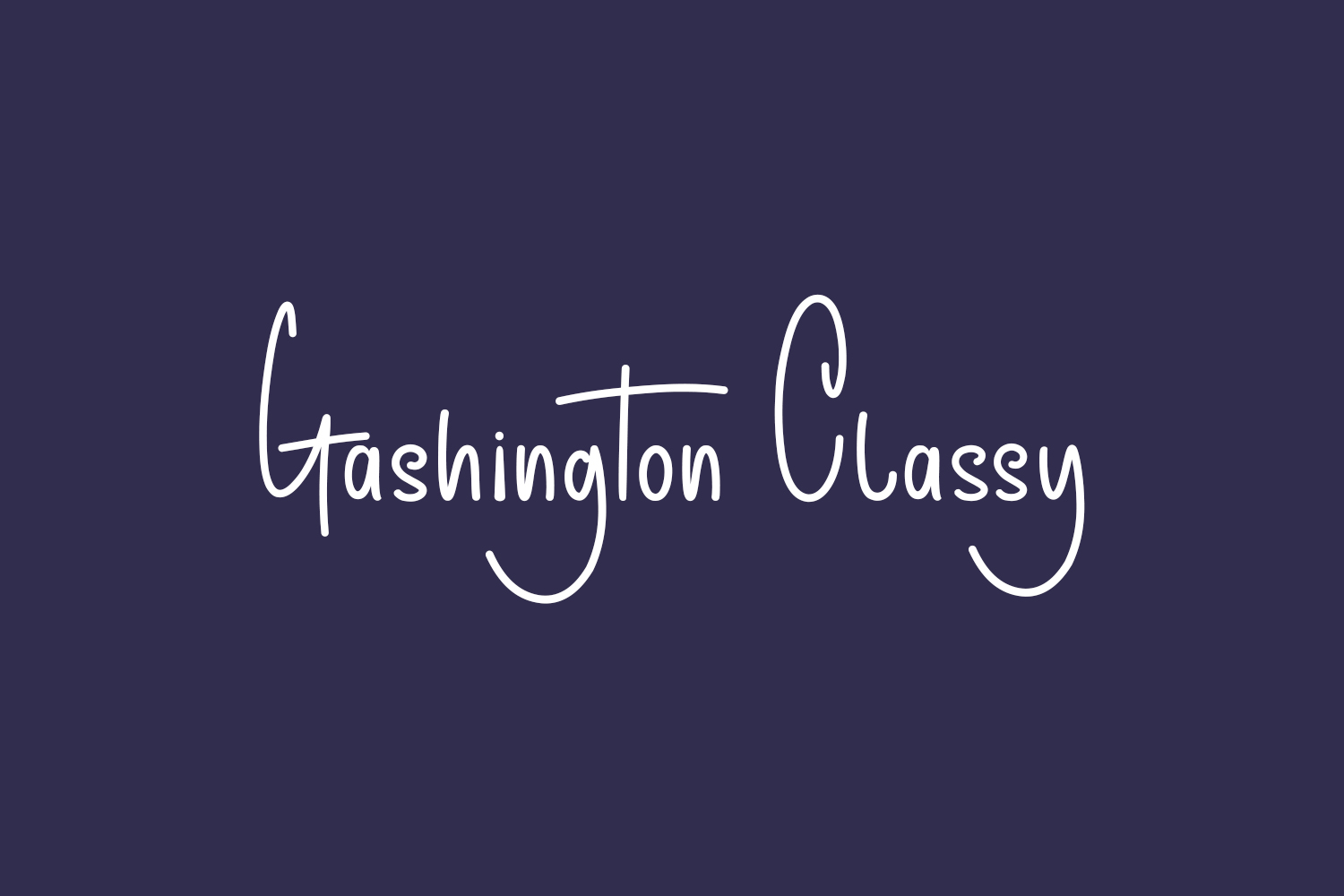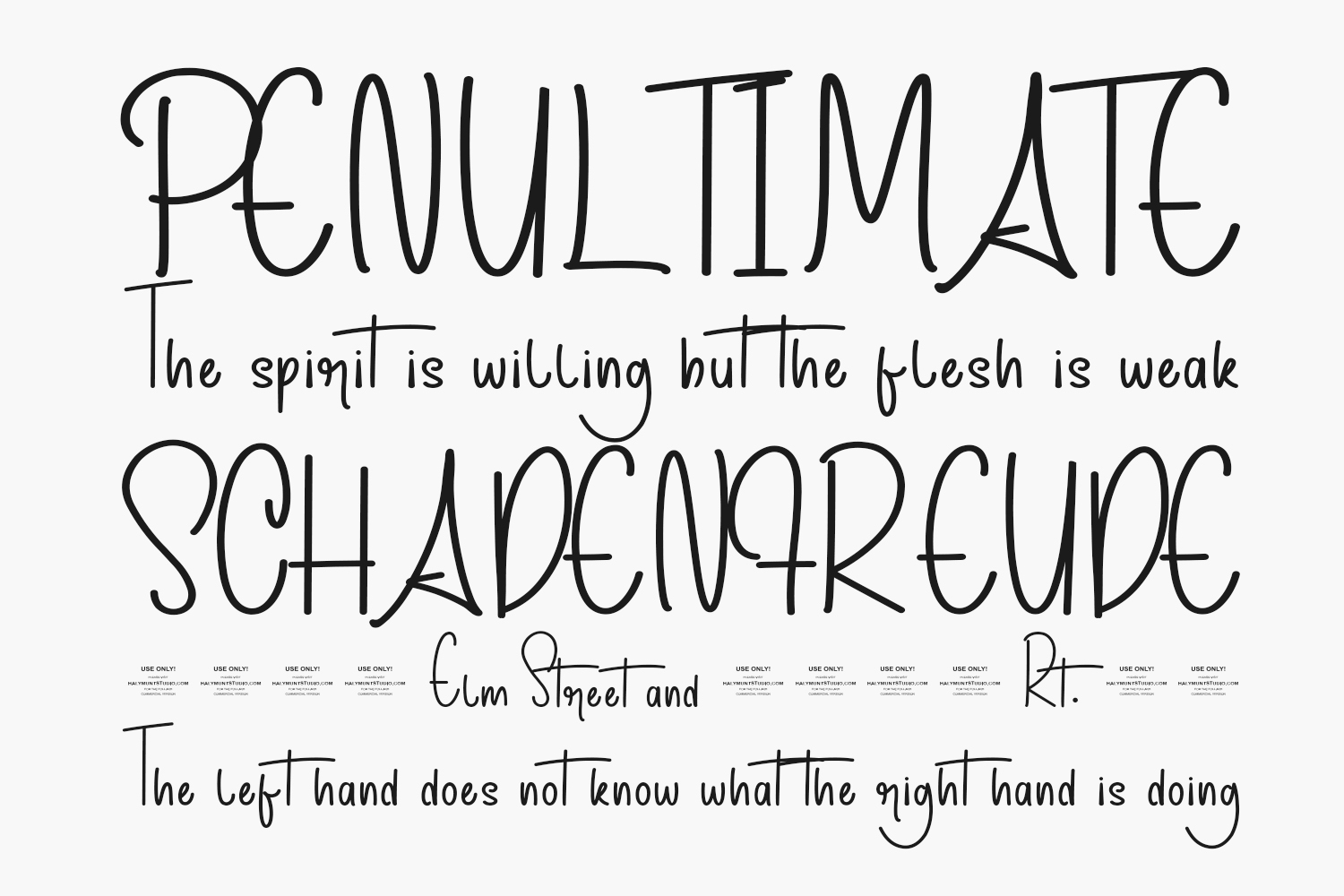
Gashington Classy Free Font is the perfect embodiment of old-world charm and modern elegance. With its beautifully crafted script handwriting, every letter exudes sophistication and refinement. The strokes are graceful and fluid, evoking a sense of effortless grace and style.
This font is versatile enough to be used for a variety of design projects, from invitations and greeting cards to logos and branding materials. Its timeless appeal is sure to capture the attention of anyone who lays eyes on it, leaving a lasting impression of class and sophistication.
Designed by Halymunt Studio